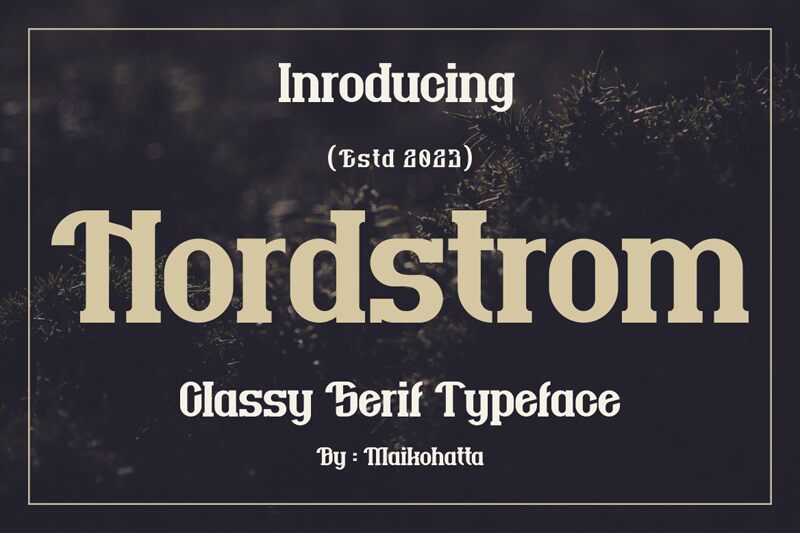
Nordstrom
Nordstrom font by Gilang Ternadho is a retro bold display font with an elegant and professional look. The bold weight and clean lines give this typeface a sophisticated yet minimalist style ideal for contemporary designs. Its integrated style combines minimalism, modernity, and classic touch to offer calm elegance.
Use it in magazine titles, fashion blog headers, branding projects, logo designs, signage pieces, posters, invitation cards even digital photography watermarks. This free display font understands no limits in both print or digital formats.